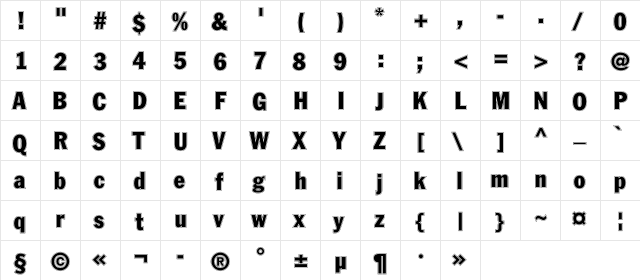
FagotCondConturC Regular
Design Context for FagotCondConturC Typeface
FagotCondConturC takes a measured approach to typography — its balanced proportions and neutral character make it a reliable workhorse for both digital and print work. The condensed width makes it efficient for tight spaces without sacrificing legibility.